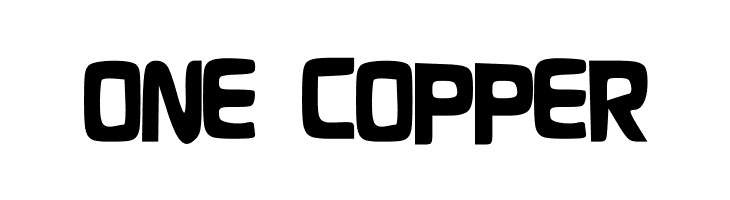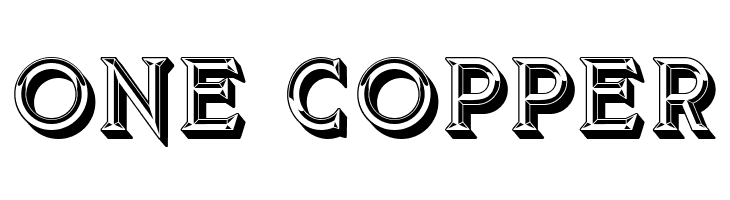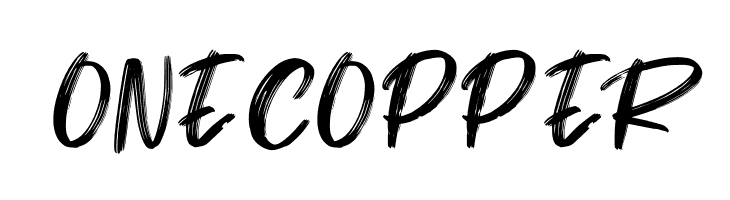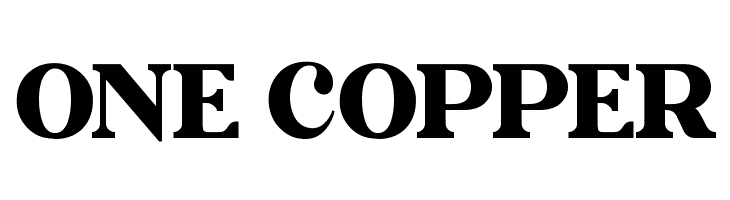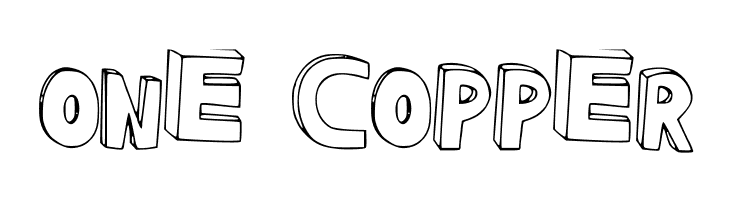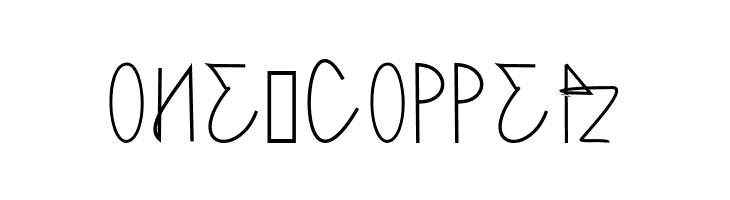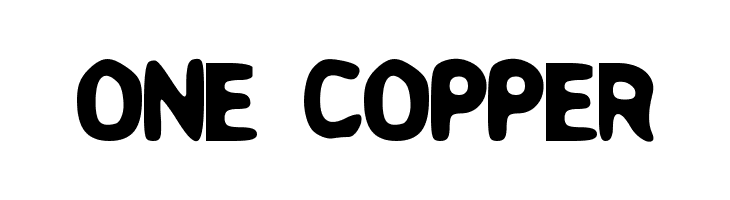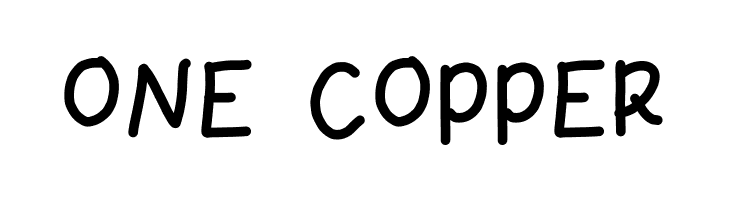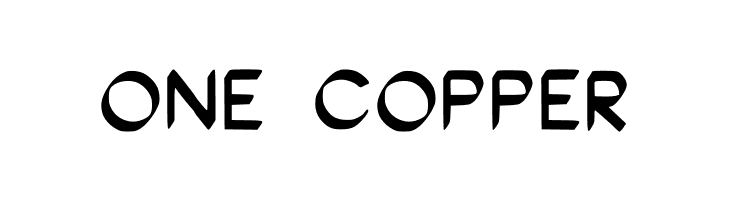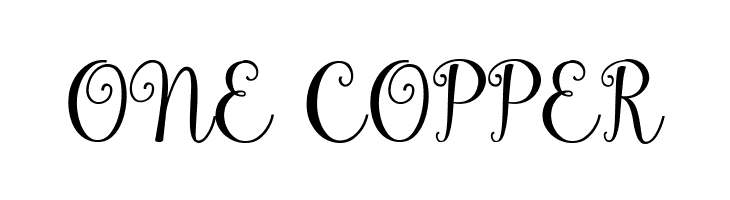
A bold serif font with a classic and authoritative style.
A bold, angular font with a modern, geometric style.
A bold, decorative font with a three-dimensional, vintage-inspired style.
A bold, futuristic font with rounded edges and thick strokes.
A bold, italicized font with a futuristic, mechanical design and rounded edges.
A bold, futuristic italic font with geometric shapes and rounded edges.
A futuristic, hollow, and geometric font with a robotic aesthetic.
A bold, hollow font with a futuristic, robotic style.
A bold, geometric font with a retro-futuristic, industrial style.
A bold, futuristic font with a mechanical and industrial aesthetic.
A bold, geometric font with a digital, arcade-inspired style.
A bold, italicized font with a pixelated, digital style ideal for modern designs.
A bold, angular, and futuristic italic font with a digital aesthetic.
A hollow, geometric font with a futuristic, tech-inspired design.
A futuristic, hollow, tech-inspired font with geometric outlines.
A bold, tech-inspired font with geometric, blocky characters and cut-out sections.
A bold, geometric font with a pixelated, digital aesthetic.
A bold, modern font with geometric and edgy design elements.
A bold, rounded font with a modern and playful style.
A bold, brush-style font with dynamic strokes and artistic flair.
A bold, geometric font with a futuristic and modern style.
A hollow, geometric font with a modern and futuristic style.
A hollow, inverse font with a futuristic and geometric style.
A bold, geometric font with a futuristic and dynamic design.
A modern, geometric font with angular, abstract letterforms.
A geometric and artistic font with thin, angular lines and a modern twist.
A playful, bold font with a 3D outline effect and whimsical character shapes.
A whimsical and elegant script font with decorative curls and loops.